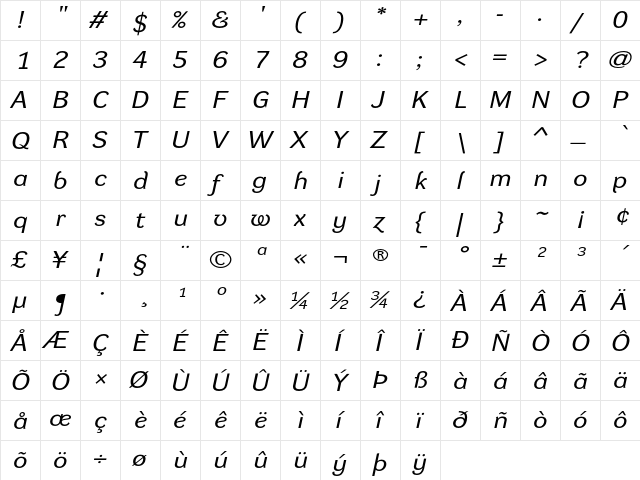
DynaGrotesk RXE Italic
Design Context for DynaGrotesk RXE Typeface
DynaGrotesk RXE takes a clean, functional approach — its unadorned letterforms prioritise legibility and work reliably across screen and print environments. The dynamic lean of this cut emphasises speed and emphasis in any layout.
Font Pairing: Works well alongside a characterful serif or display font that can carry the expressive load while DynaGrotesk RXE handles the functional copy.
Pro Tip: Pair DynaGrotesk RXE with a display or serif font for headlines — its neutral character makes it an excellent supporting player in complex typographic systems.